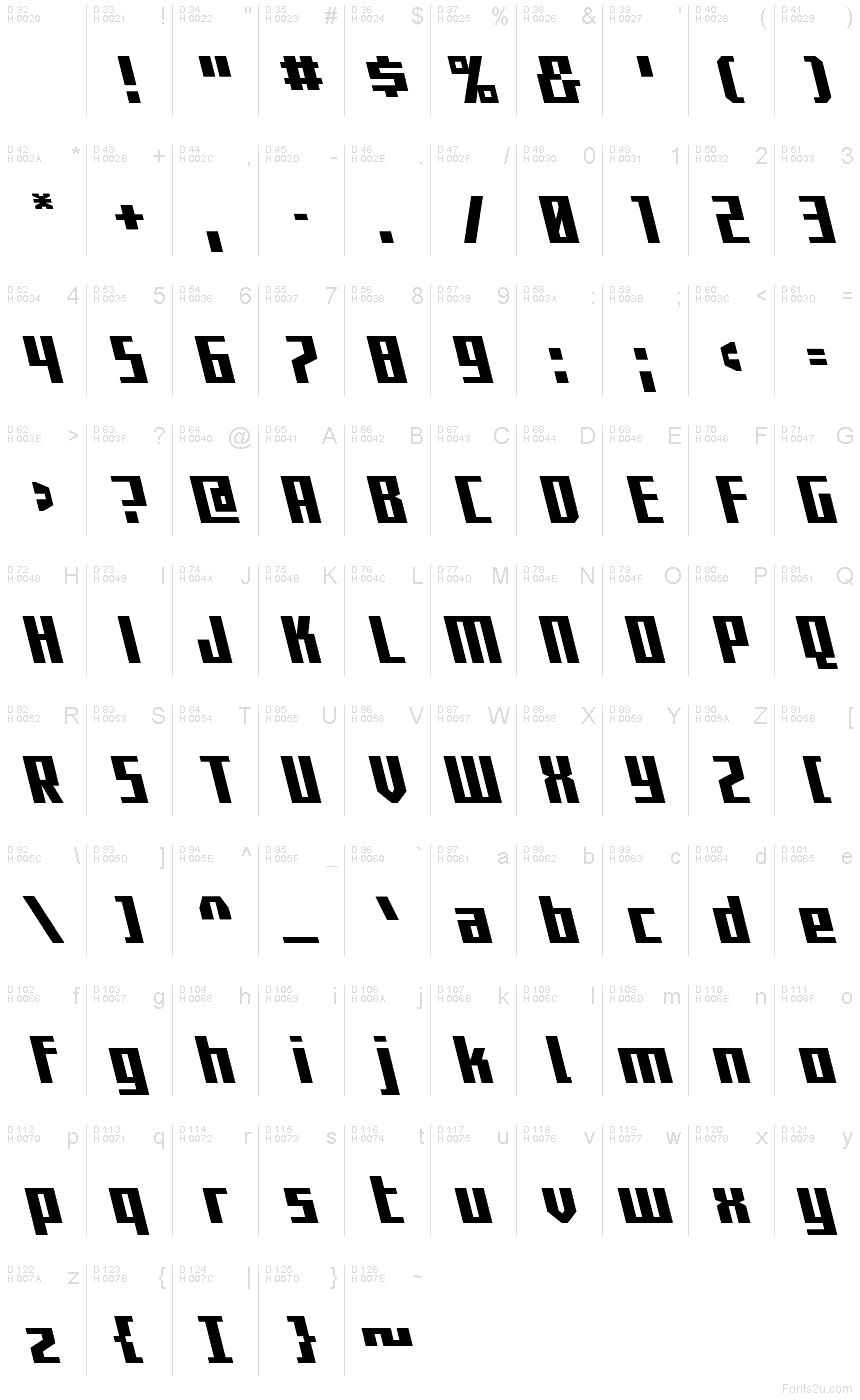
Capitol City Leftalic
Capitol City Leftalic font by Iconian Fonts is a sleek techno display font, geometric and futuristic in its appearance. The angular condensed characters it features look modern and artistic altogether. Even in context, the letters remain easily recognizable thanks to their unique and clear designs.
This free font is suitable for large headline displays that appear on posters, advertisements, magazines, sports websites, posters, movie titles, and packaging projects. It’s also fitting for typographic artwork that appears on apparel pieces/branding projects as well as logo branding.